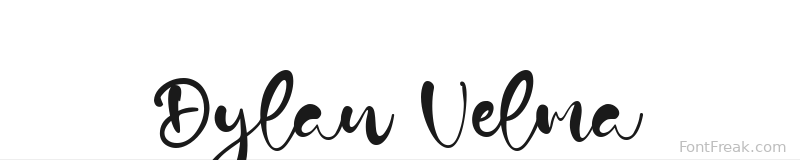
Dylan Velma
Dylan Velma, created by Kong Font in 2021, is an enchanting handwritten typeface that embodies both elegance and creativity. As a display font, it is characterized by its fluid strokes and charming personality, making it an excellent choice for projects that require a touch of warmth and individuality. The font features a medium stroke weight with subtle contrast, giving it a balanced appearance that is neither too bold nor overly delicate. The generous spacing between characters enhances readability while maintaining an inviting aesthetic.
This versatile font is ideal for a variety of design applications. Its playful yet sophisticated style makes it perfect for wedding invitations, where it can add a personal touch to the special occasion. Additionally, Dylan Velma works beautifully for restaurant menus, helping to create a welcoming atmosphere that draws in patrons. Graphic designers will find it suitable for branding projects, where a unique logo or promotional materials can benefit from its distinctive flair. Content creators can also utilize this font for social media graphics to capture attention and engage audiences effectively.
Targeted primarily at graphic designers, small business owners, and content creators, Dylan Velma offers a delightful way to express creativity while ensuring a professional appearance. The font’s charm and versatility make it a treasured asset in any designer's toolkit.
What truly sets the Dylan Velma font apart is its ability to evoke emotion while maintaining clarity and function. Its handcrafted feel can elevate everyday designs, making them memorable and relatable. For those interested in enhancing their projects, the Dylan Velma font free download is an opportunity to incorporate this captivating typeface into your work, ensuring that your designs stand out in a crowded marketplace.